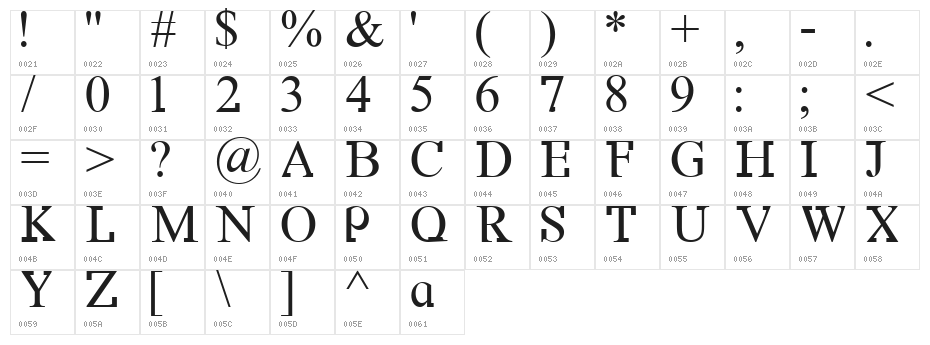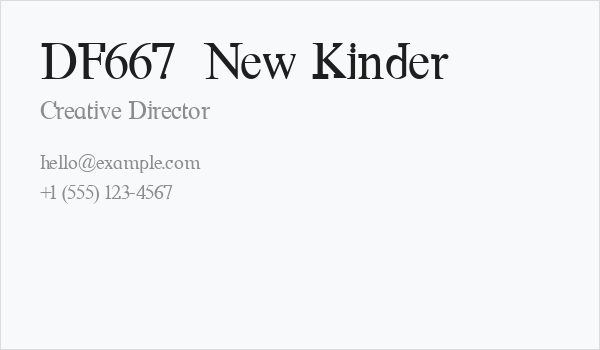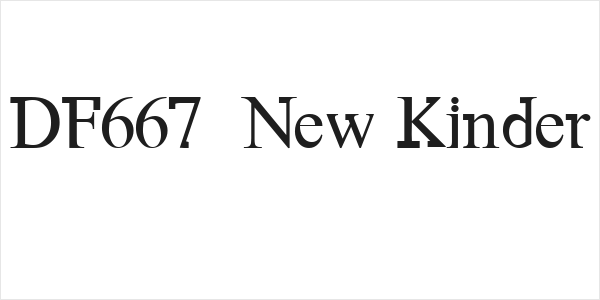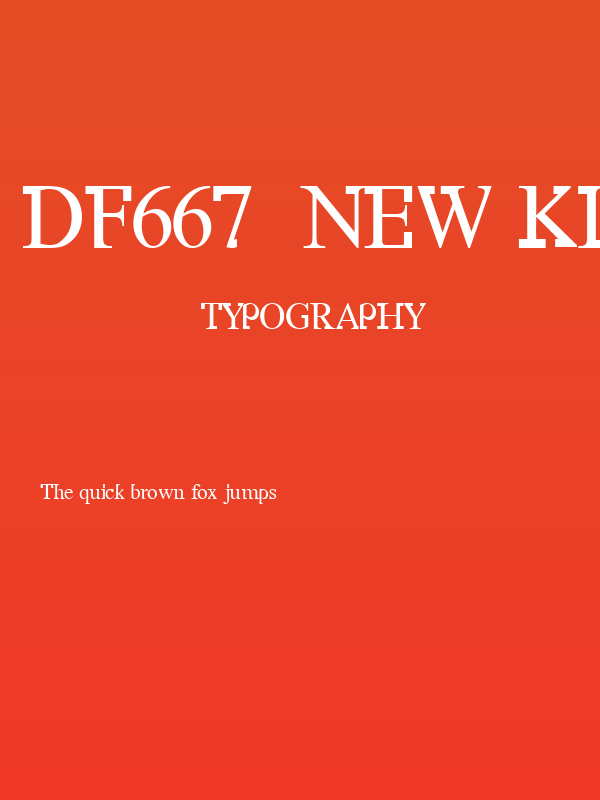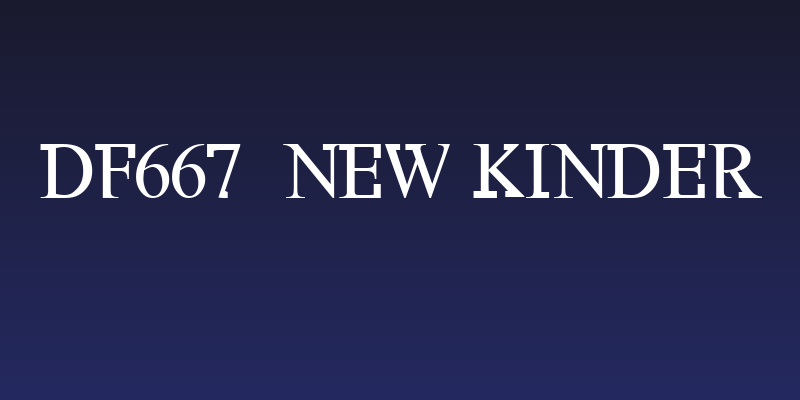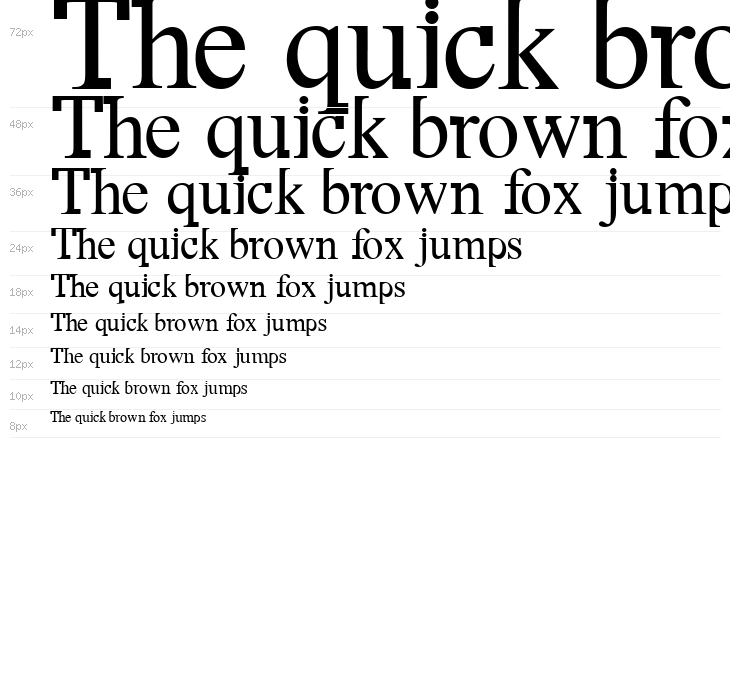
DF667 New Kinder Font
DF667 New Kinder Description
This font exhibits a classic serif style with a modern twist, characterized by its elegant and refined letterforms. The uppercase letters are bold and commanding, while the lowercase letters maintain a graceful and balanced appearance. The numerals are distinct and clear, ensuring readability. Special characters are well-integrated, maintaining the overall aesthetic of the font. The strokes are consistent, with a medium contrast that adds to its legibility and appeal. This font is versatile, suitable for a variety of applications where a touch of sophistication is desired.
| Proposed Projects | Ideal for editorial design, book covers, branding, and formal invitations. |